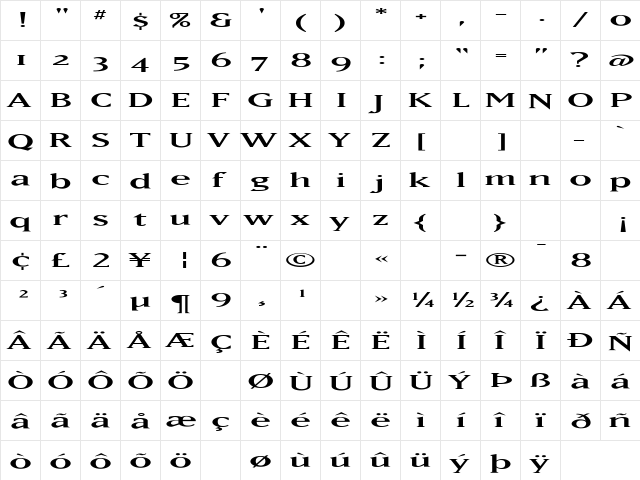
MatrixWide Roman
Design Context for MatrixWide Typeface
MatrixWide is a composed and adaptable typeface that performs quietly and consistently across a wide range of design contexts.
Pro Tip: Pair MatrixWide with a font of contrasting weight or personality to build a more expressive typographic hierarchy.